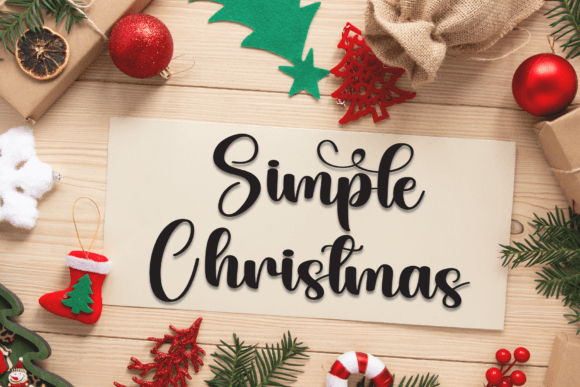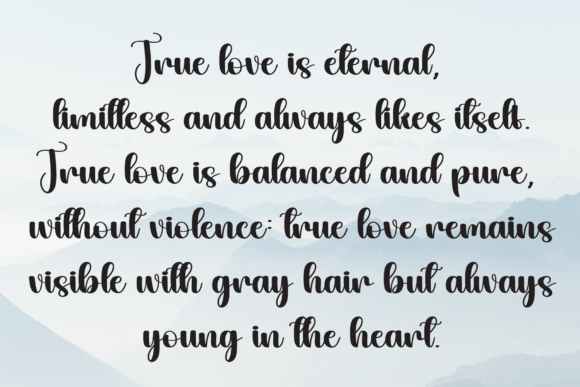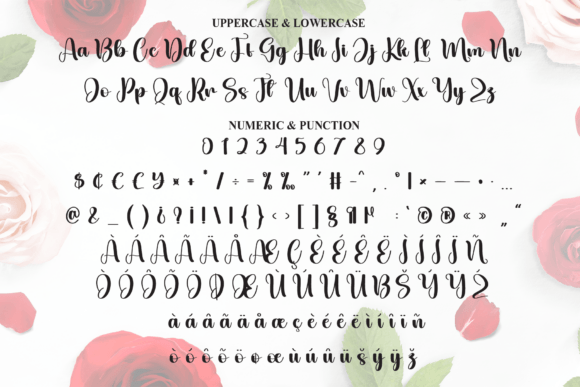
Introduction to Roseday Font
Have you ever found yourself stuck in a creative rut, searching for the perfect font to elevate your design project? It’s a feeling we’ve all been there – scrolling through font libraries, trying to find that one special something that sets our work apart. For designers, a well-chosen font can be the difference between a good design and a great one. And when it comes to adding a personal touch, the Roseday Font is a game-changer.
With its bold, handwritten style and thick strokes, the Roseday Font is perfect for designers who want to add a high-quality, unique element to their work. Whether you’re working on a design project with a transparent background or need a free download to spice up your social media graphics, the Roseday Font is an invaluable resource.
Key Features of Roseday Font
- High-quality design resource suitable for creative projects, with a transparent background for seamless integration.
- Features a clean and elegant design, perfect for use in logos, branding, and other visual identity projects.
- Designed to be highly legible, making it an excellent choice for body text and headlines in creative projects.
- Perfect for designers looking for a free, high-quality font that can elevate their design projects and add a touch of sophistication.
Honest Review: Roseday Font
I recently stumbled upon the Roseday Font, and I must say, it’s a fantastic addition to any designer’s arsenal. As a design resource, it’s a high-quality font that can elevate any creative project. What I love about it is the elegant and modern design, making it perfect for a wide range of applications.
One of the standout features of the Roseday Font is its versatility. It comes in various styles and weights, allowing designers to mix and match to achieve the desired look. The font also features a transparent background, making it easy to customize and pair with other design elements.
- Wide range of styles and weights
- May not be suitable for very bold or dramatic designs
- Some users may find the font too minimalist
Overall, I’m thoroughly impressed with the Roseday Font. It’s a great resource for designers looking for a high-quality font to add some elegance to their creative projects. While it may have some limitations, I think it’s well worth exploring further.
Tips for Getting the Most Out of Roseday Font
For the best results, use the Roseday Font on a high-quality design resource like a transparent background. This will allow the font to stand out and add a touch of elegance to your project. You can also use the font in combination with other design elements to create a unique and creative look.
Common Use Cases for Roseday Font
The Roseday Font is perfect for a variety of creative projects, including logos, business cards, and brochures. It’s also great for use in presentations, documents, and websites. With its high-quality design and transparent background, the Roseday Font is a great resource for anyone looking to add a touch of sophistication to their project.